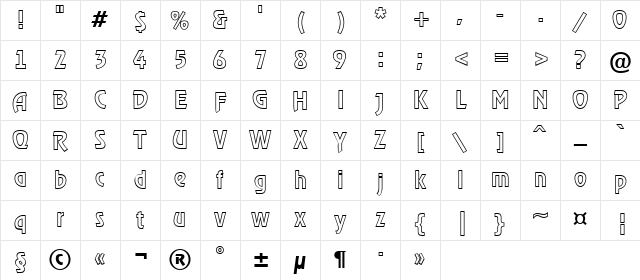
Complete a_RewinderOtl Regular glyph index. Displaying only characters natively supported by a_RewinderOtl Regular font.
a_RewinderOtl is a composed and adaptable typeface that performs quietly and consistently across a wide range of design contexts.
Pro Tip: Use a_RewinderOtl in both headline and body roles to test its range before committing to a single application.